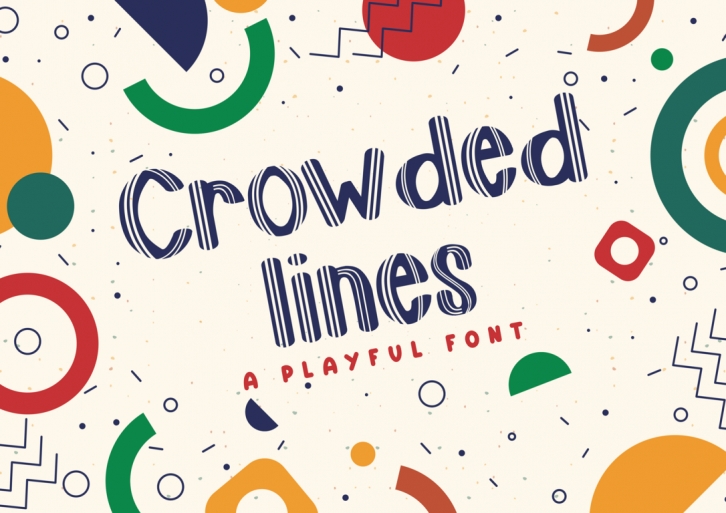
Crowded Lines is a peculiarly attractive display font. Unique and playful, this typeface is the perfect choice for children’s projects or other crafty ideas that need a friendly, creative touch!